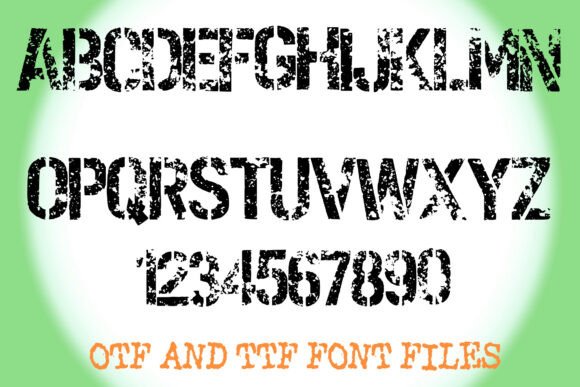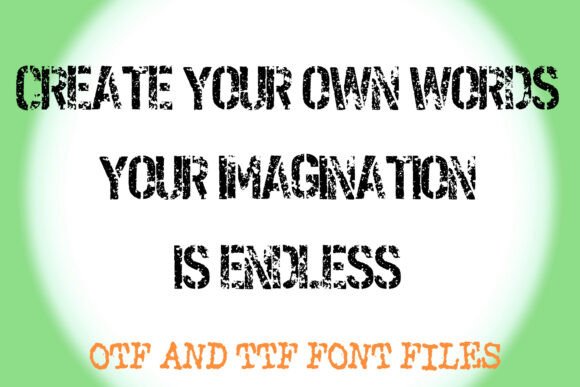
Channel Rugged Military Vibes with the Army Stencil Distressed Font
Are you looking for a font that exudes toughness, resilience, and a hint of ruggedness? Look no further than the Army Stencil Distressed Font. This bold, weathered typeface is perfect for designers and crafters who want to add a touch of military flair to their projects. In this article, we’ll explore the features and benefits of the Army Stencil Distressed Font, and how you can use it to create stunning designs that command attention.
What is the Army Stencil Distressed Font?
The Army Stencil Distressed Font is a unique typeface that mimics the look of authentic stenciled lettering worn by time and terrain. The font features a distressed, worn look that gives it a rugged, battle-hardened appearance. The stencil design adds a sense of functionality and practicality, evoking the idea of military equipment and gear.
Key Features of the Army Stencil Distressed Font
- Distressed texture: The font features a worn, weathered texture that gives it a realistic, battle-worn look.
- Stencil design: The stencil design adds a sense of functionality and practicality, perfect for military and industrial themes.
- Bold and clear: Despite the distressed texture, the font remains bold and clear, making it perfect for headlines and titles.
- Versatile: The font is versatile and can be used for a wide range of projects, from tactical themes to vintage posters and industrial branding.
Uses for the Army Stencil Distressed Font
The Army Stencil Distressed Font is perfect for a wide range of projects, including:
- Tactical themes: Add a touch of military authenticity to your tactical-themed designs, such as logos, posters, and flyers.
- Vintage posters: Create vintage-style posters with a distressed, worn look that’s perfect for promoting events, products, or services.
- Military designs: Use the font to create military-inspired designs, such as logos, insignia, and emblems.
- Industrial branding: Add a touch of ruggedness and resilience to your industrial branding, such as logos, packaging, and marketing materials.
Tips for Using the Army Stencil Distressed Font
Here are some tips for getting the most out of the Army Stencil Distressed Font:
- Use it boldly: The font is designed to make a statement, so use it boldly and prominently in your designs.
- Experiment with colors: The font looks great in a range of colors, from metallic silvers and blacks to bold reds and blues.
- Combine with images: Combine the font with images of military equipment, landscapes, or other rugged textures to add depth and context.
- Play with textures: Experiment with different textures and overlays to add even more depth and interest to your designs.
The Army Stencil Distressed Font is a powerful and versatile typeface that’s perfect for designers and crafters who want to add a touch of rugged military flair to their projects. With its distressed texture, stencil design, and bold, clear lettering, this font is sure to command attention and make a statement. Whether you’re creating tactical themes, vintage posters, military designs, or industrial branding, the Army Stencil Distressed Font is the perfect choice.